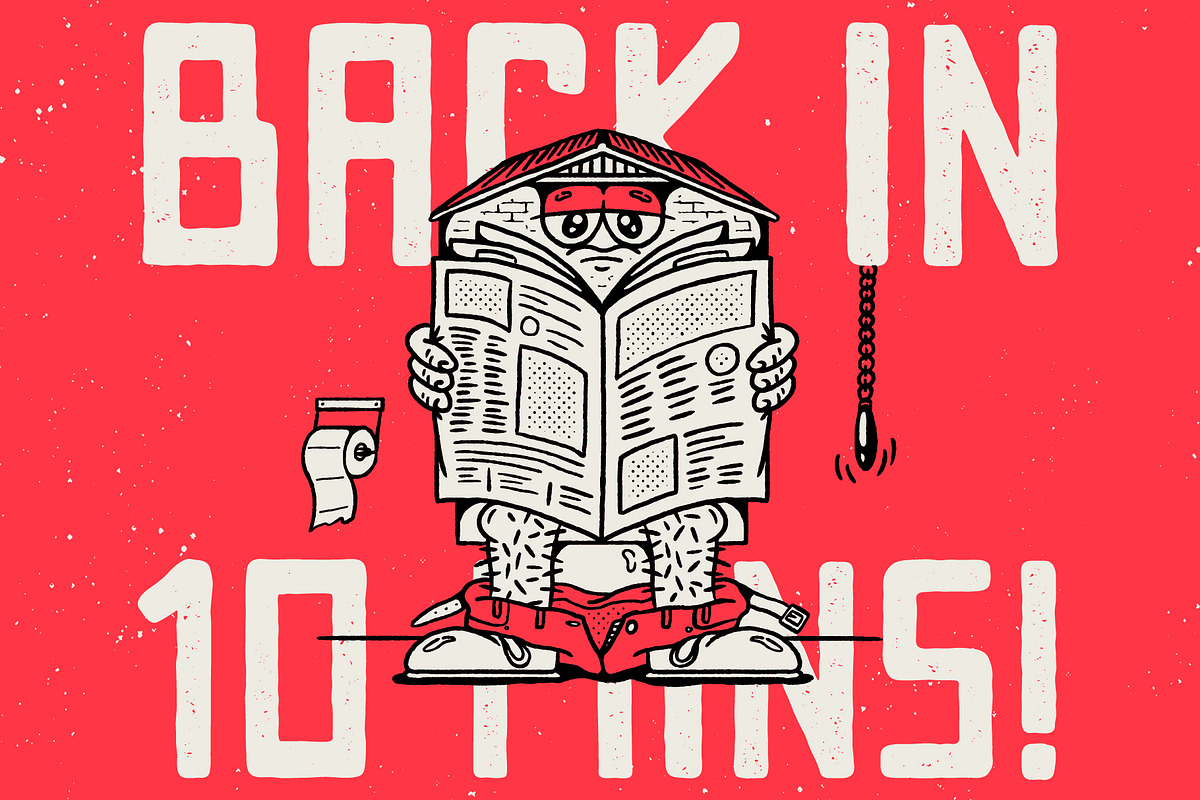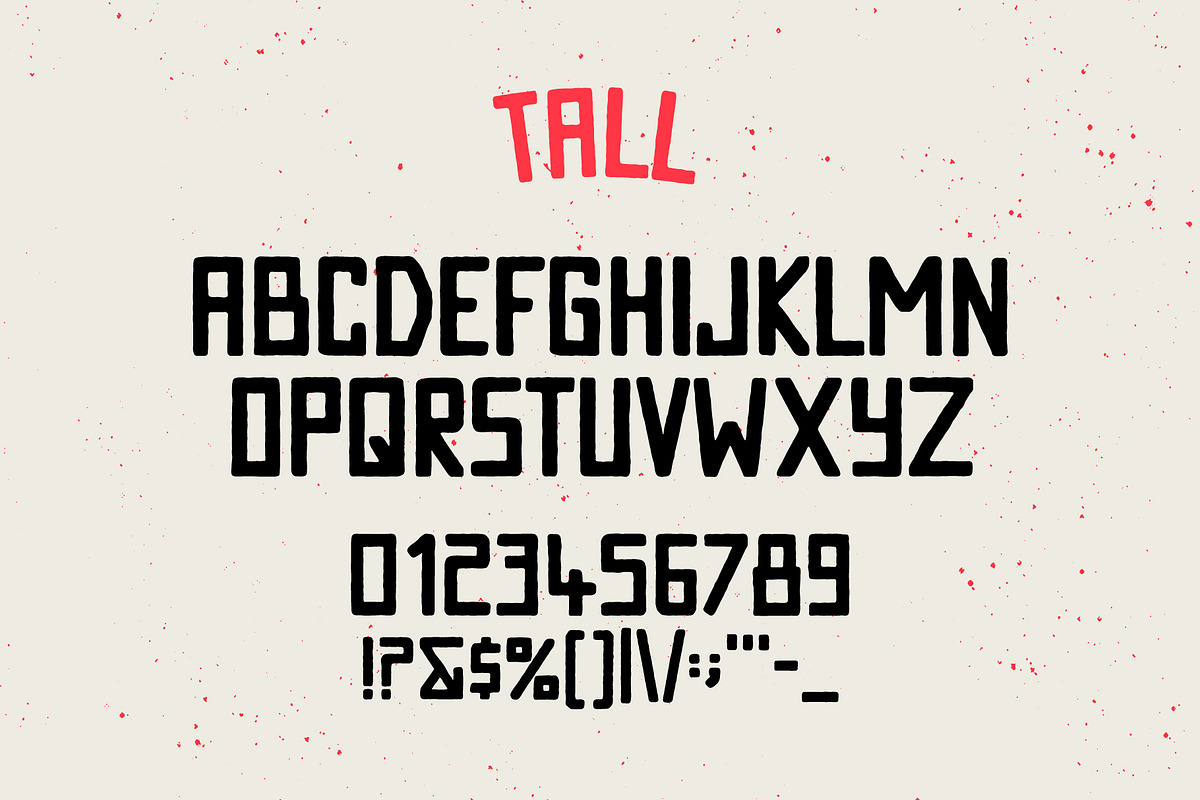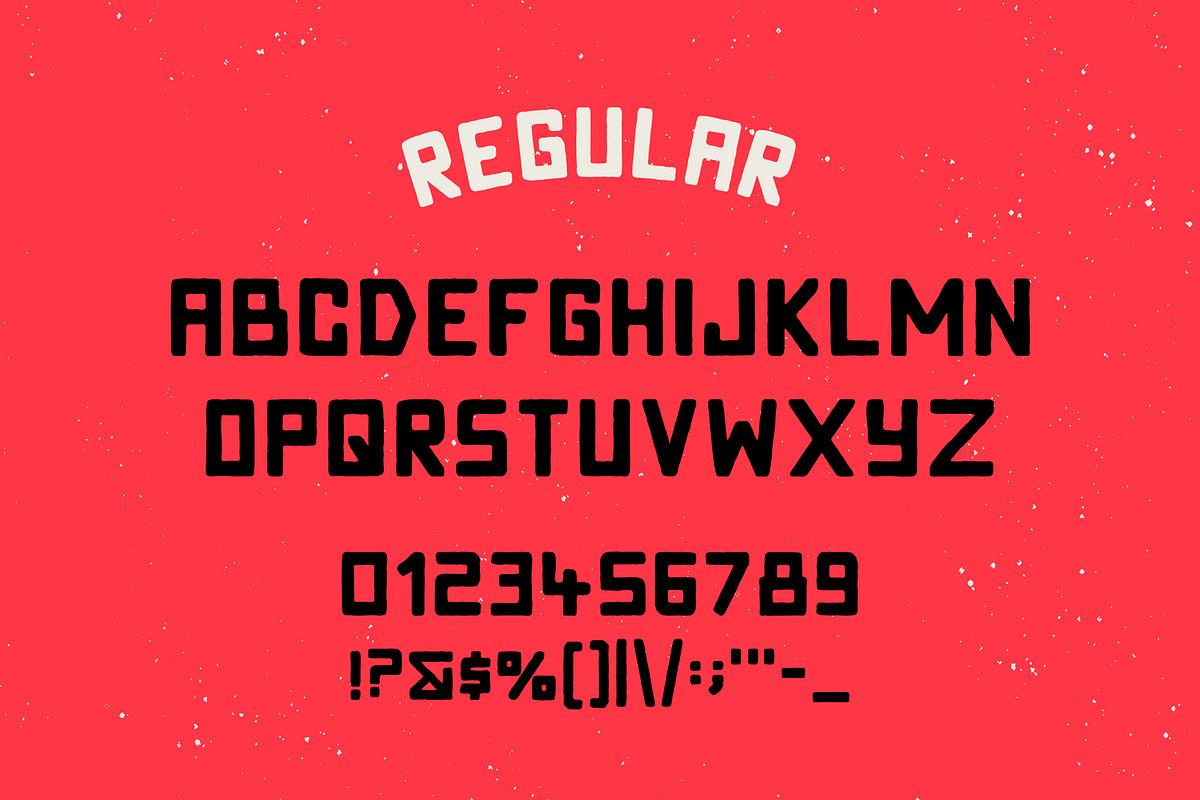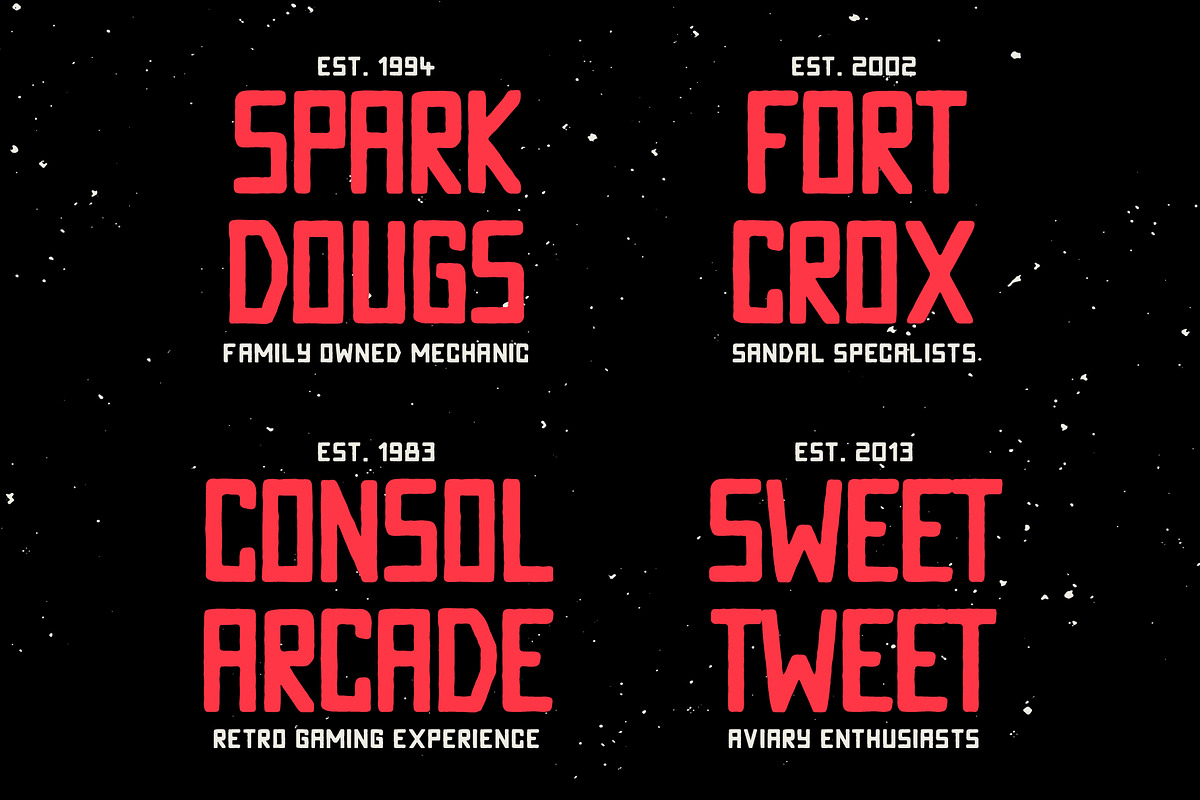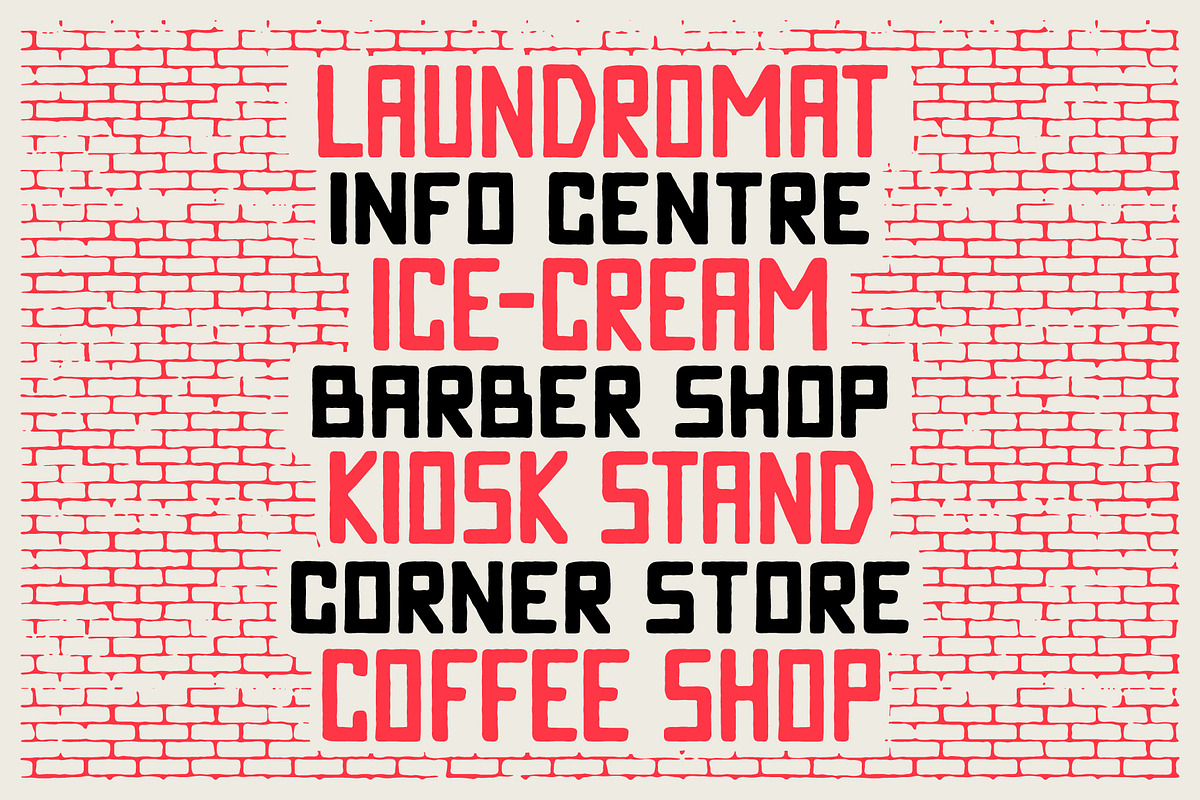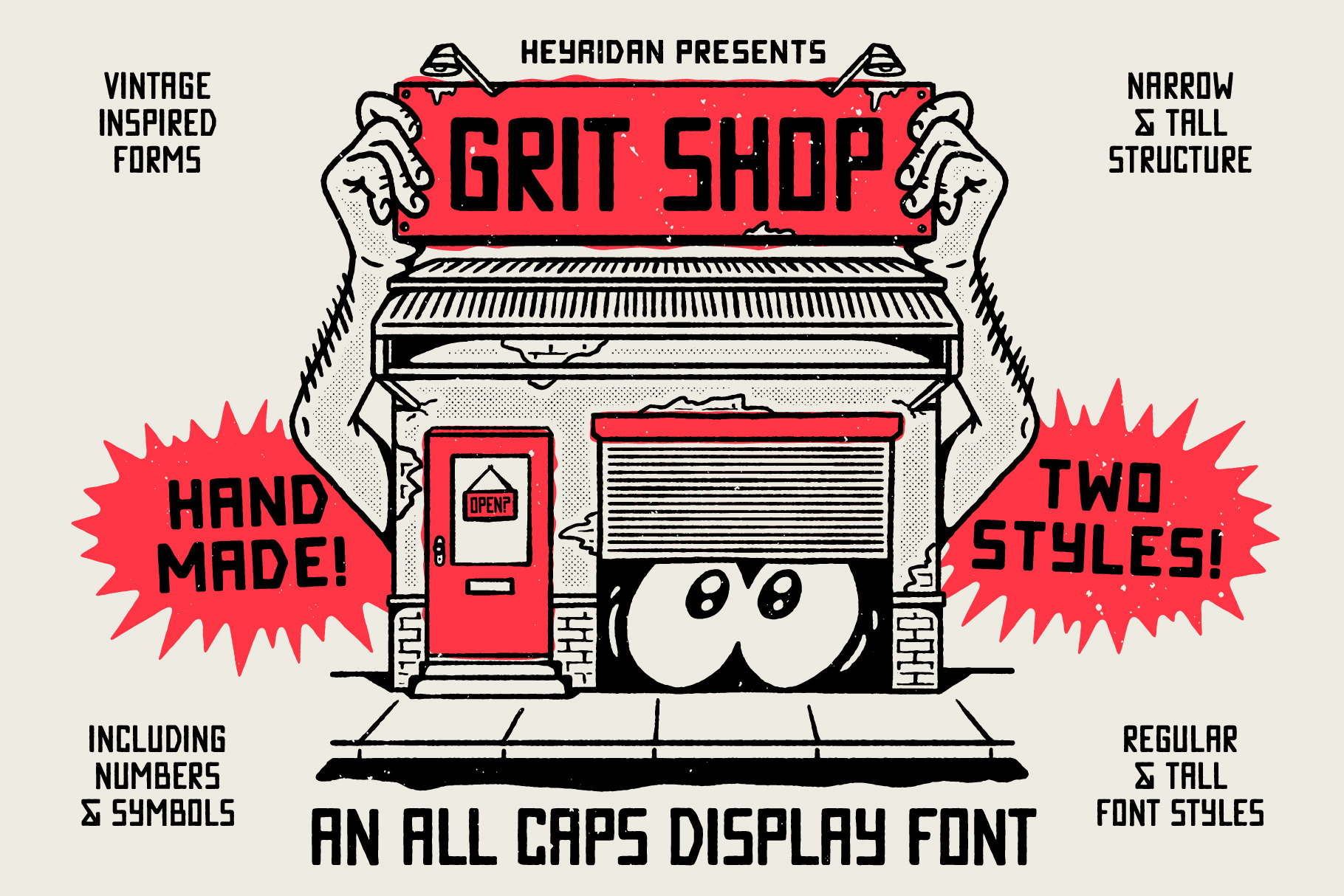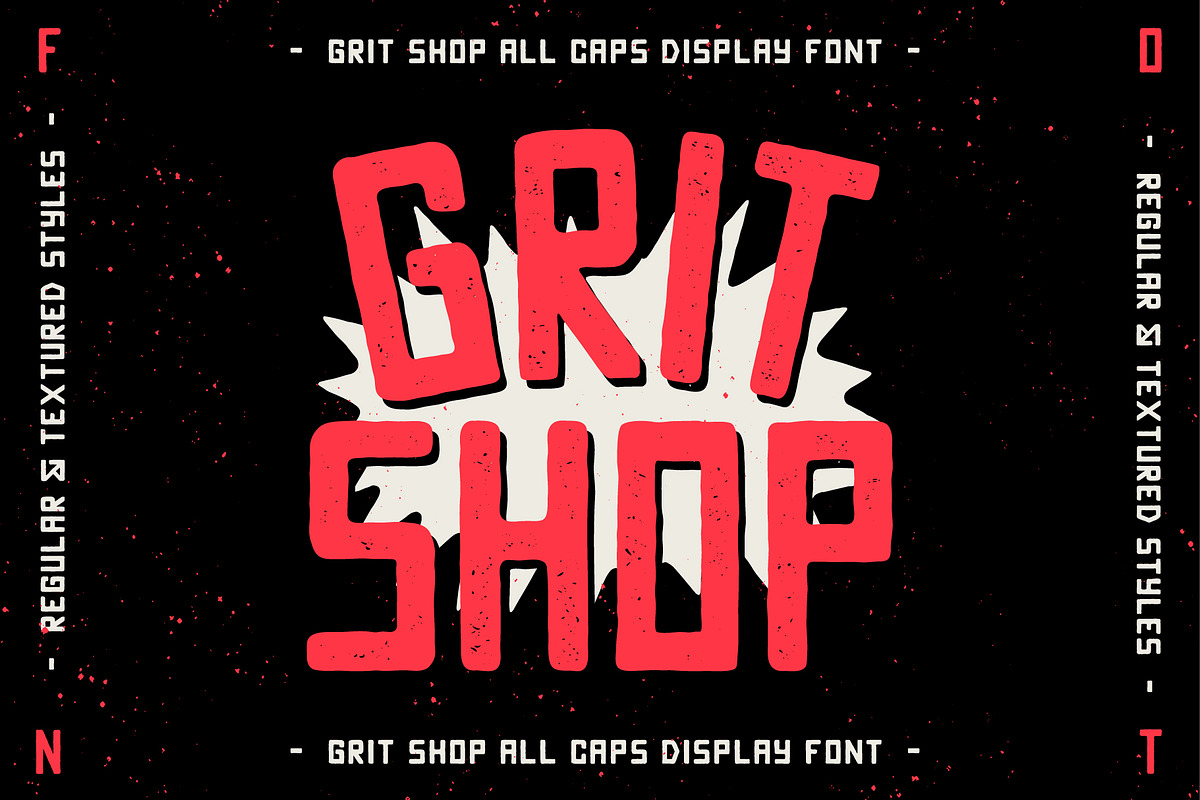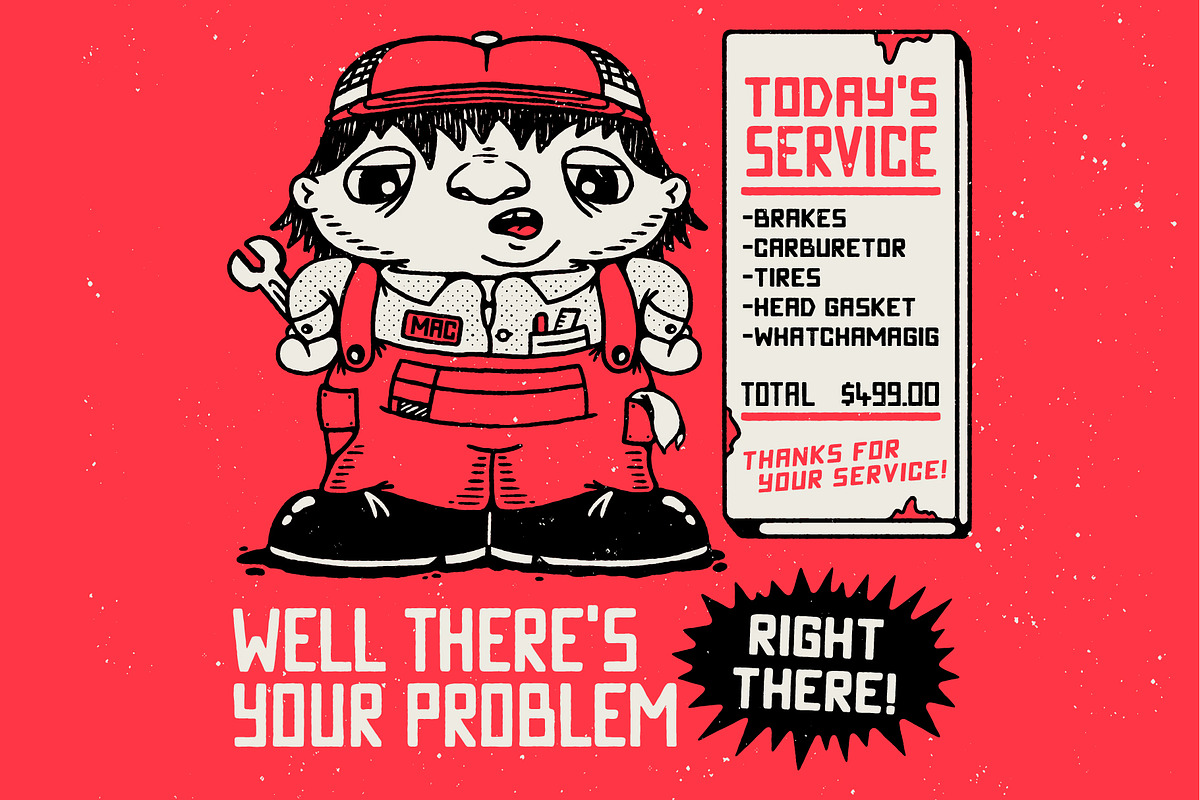
Grit Shop | Vintage Textured Font
Welcome to the Grit Shop! Don't mind the mess... as this is a font that was inspired by a typographic sign I spotted in a in small regional town.
Need a little extra grit to your designs but can't be arsed? Say no more as I've got you covered with this textured and bold, vintage font. Not one but two styles are available - Regular and Textured. If you know me, you know I friggin love a blocky, janky and textured font. Hope ya dig!
Grit Shop is an All Caps display font that is blobby around the edges, has a narrow struture with geometric style forms. Add an extra layer of grease to your work with this rachet font.
- Letters in all caps
- Most Punctuation
- Most common symbols
- Absolutely no smooth edges here!